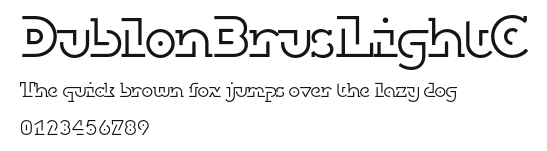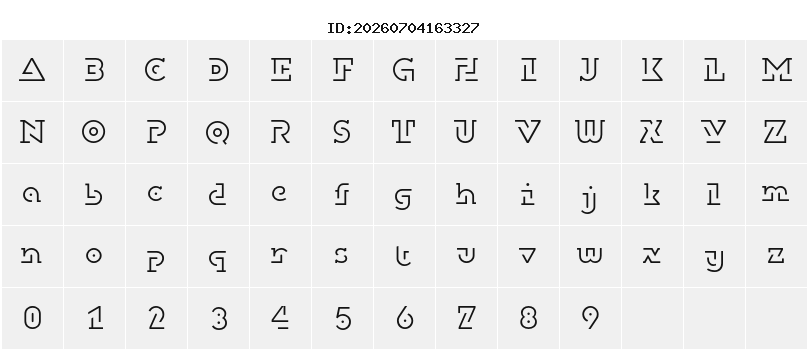
• Font Name: DublonBrusLightC
• Full Font Name: DublonBrusLightC
• PostScript Name: DublonBrusLightC
About DublonBrusLightC.otf
DublonBrusLightC.otf is a modern, elegant sans-serif font designed for ultimate readability and visual harmony. Perfect for branding, headlines, web design, and print materials.